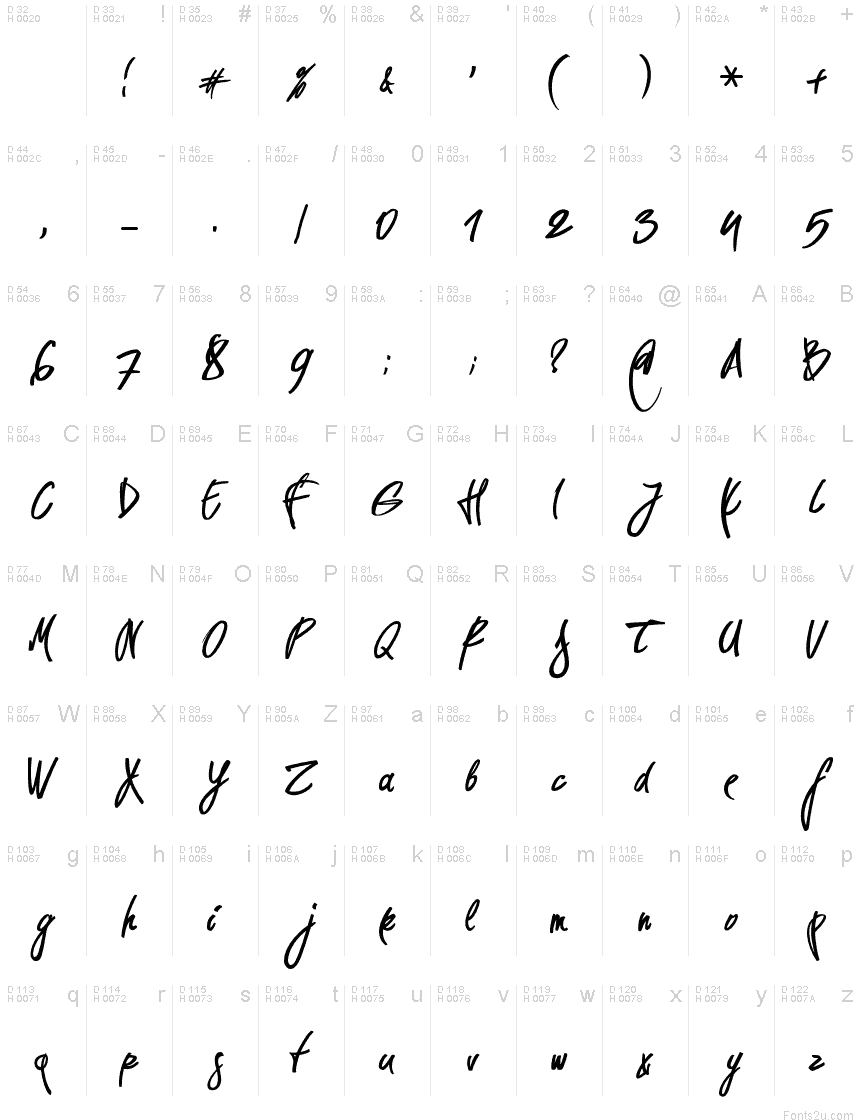
Pirmokas is a free handwritten font with an oversized, fast-moving signature style. Its strokes swing from broad loops into fine, sharp turns, and the letters overlap with an intentionally unruly pace. Long flourishes dominate the silhouette.
A fashion campaign is its strongest setting, especially for mastheads and promotional graphics that need lettering with real sweep. The same expressive line suits music posters and beauty packaging, where it can echo gestural photography or ink marks. In branding, the lettering can become a signature emblem rather than a neutral nameplate.
Pirmokas